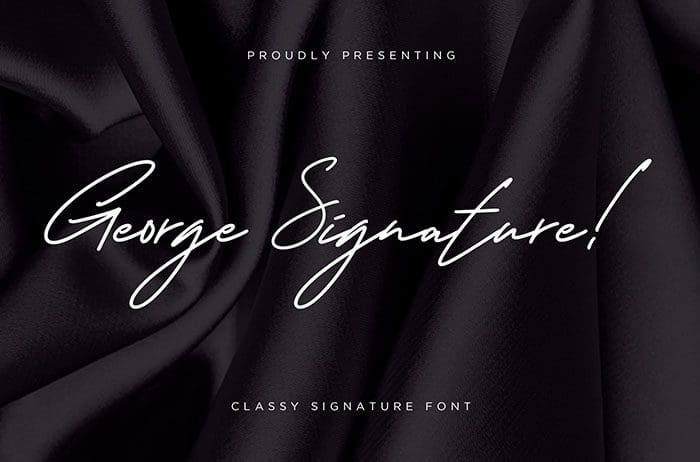
George Signature Font is a nice and elegant classy font collection that will make your project looks amazing. Perfect for logo, wedding designs, and more. Thanks to Creatype Studio for sharing this font! Take a look at this portfolio for more of his stunning fonts.